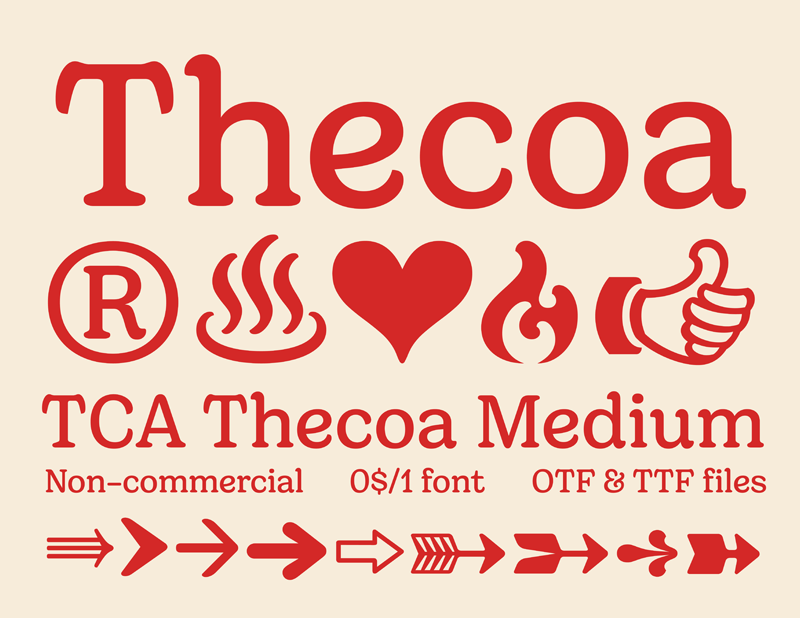
TCA Thecoa
Font familyTCA Thecoa
CreatorThecoa Foundry
TCA Thecoa Medium A Groovy Delicious Serif font for food & beverage and all things tasty - Free for personal use - 1 font with full functions Ligatures | Case-sensitive forms | Superscripts & Subscripts | Stylistic sets | Arrows & Ornaments - 1018 glyphs - 481 Latin Languages - OTF & TTF files